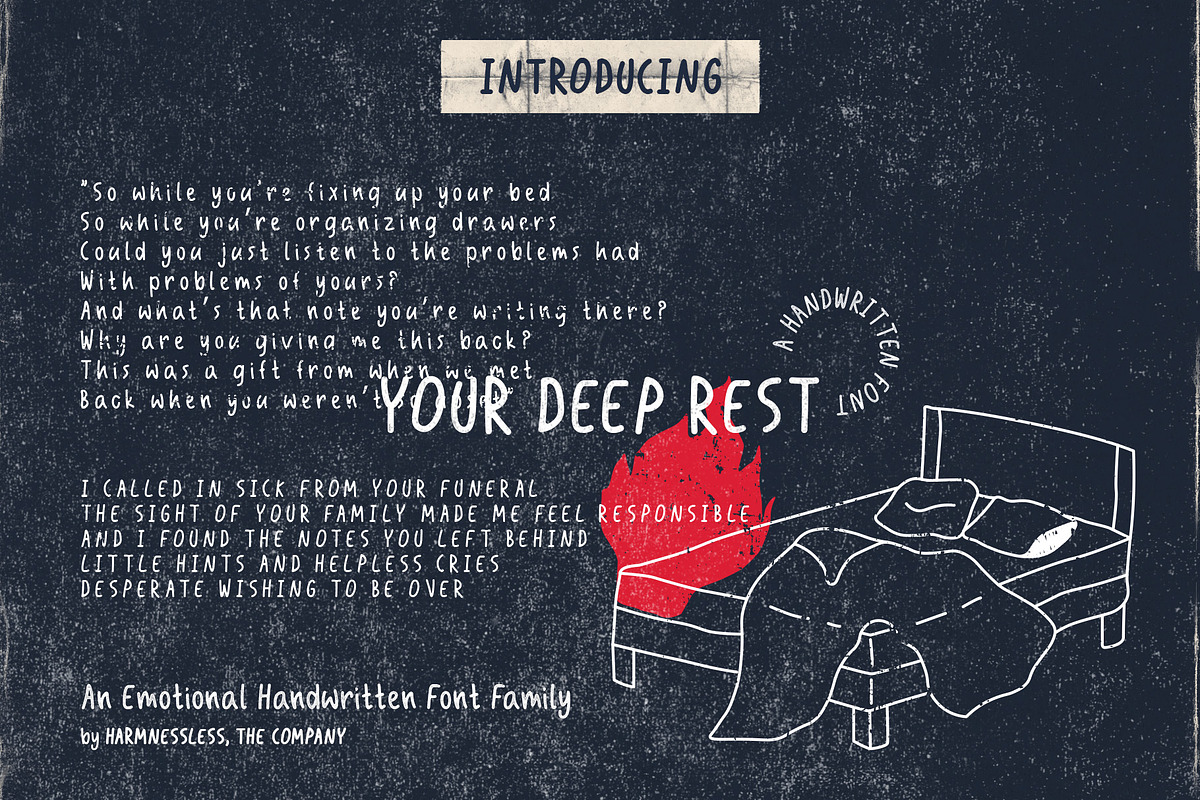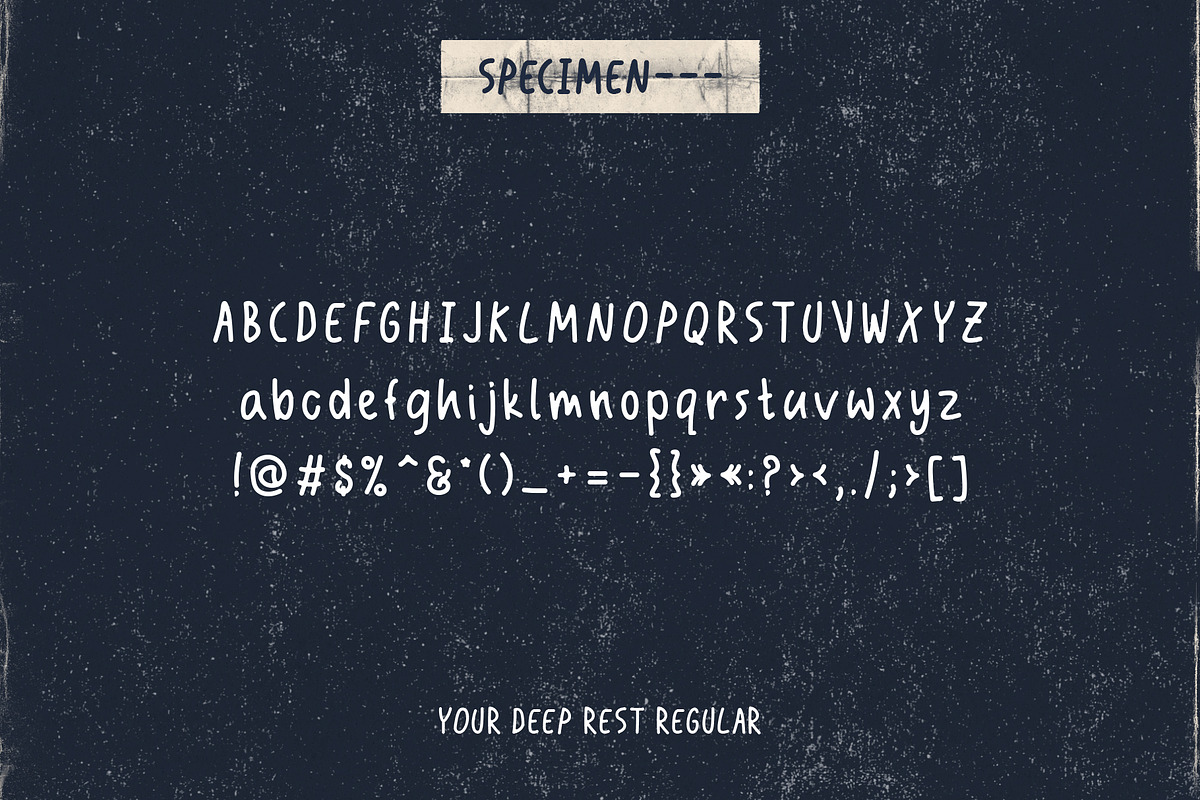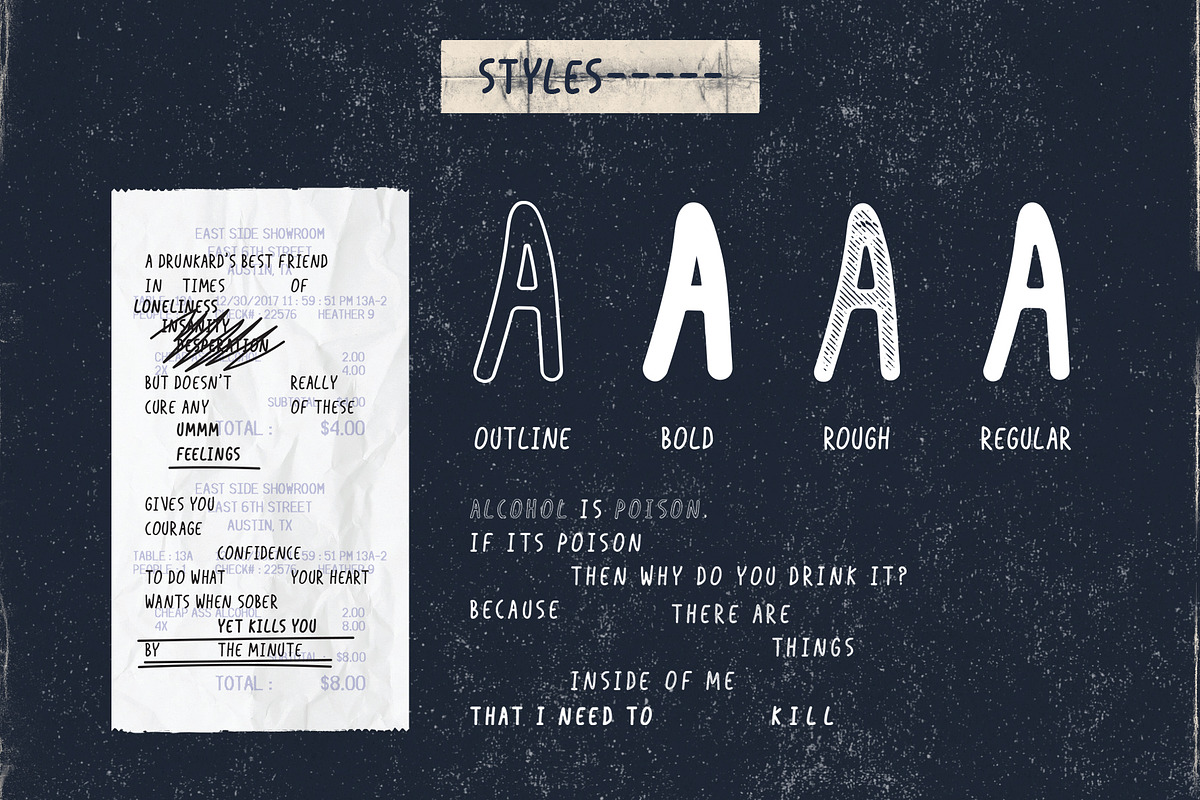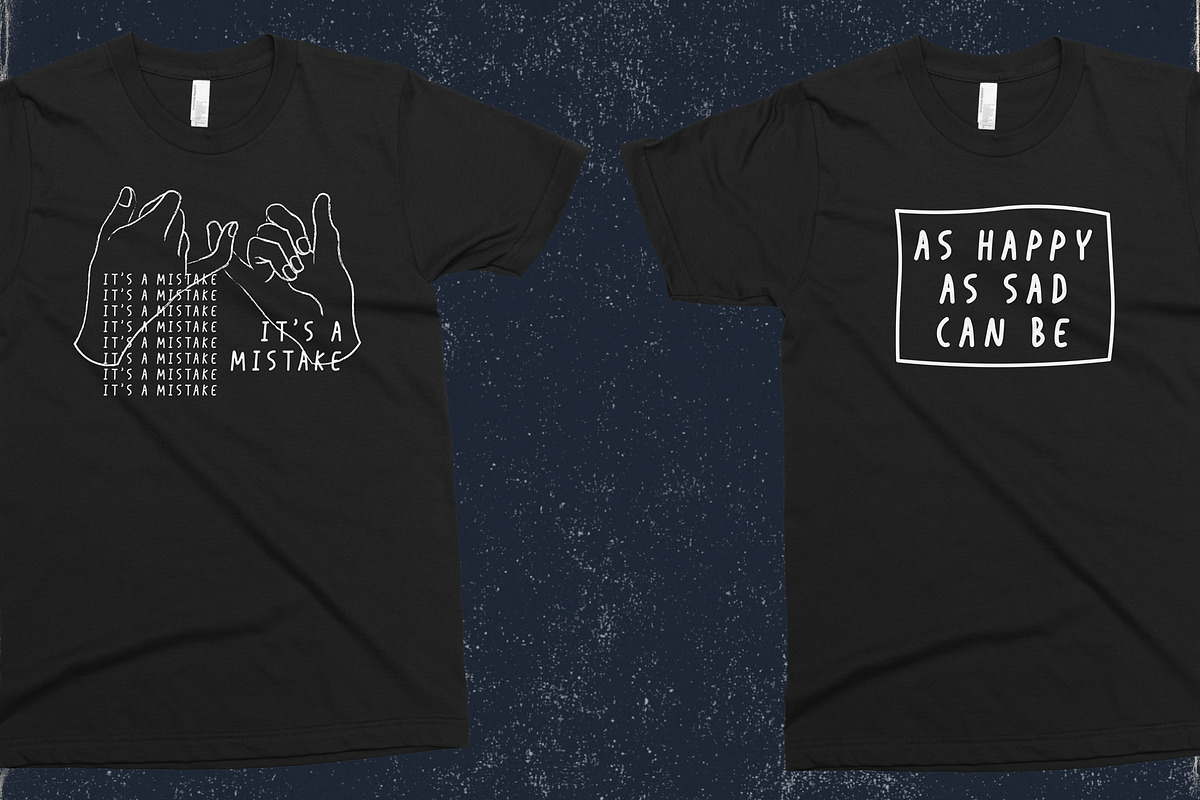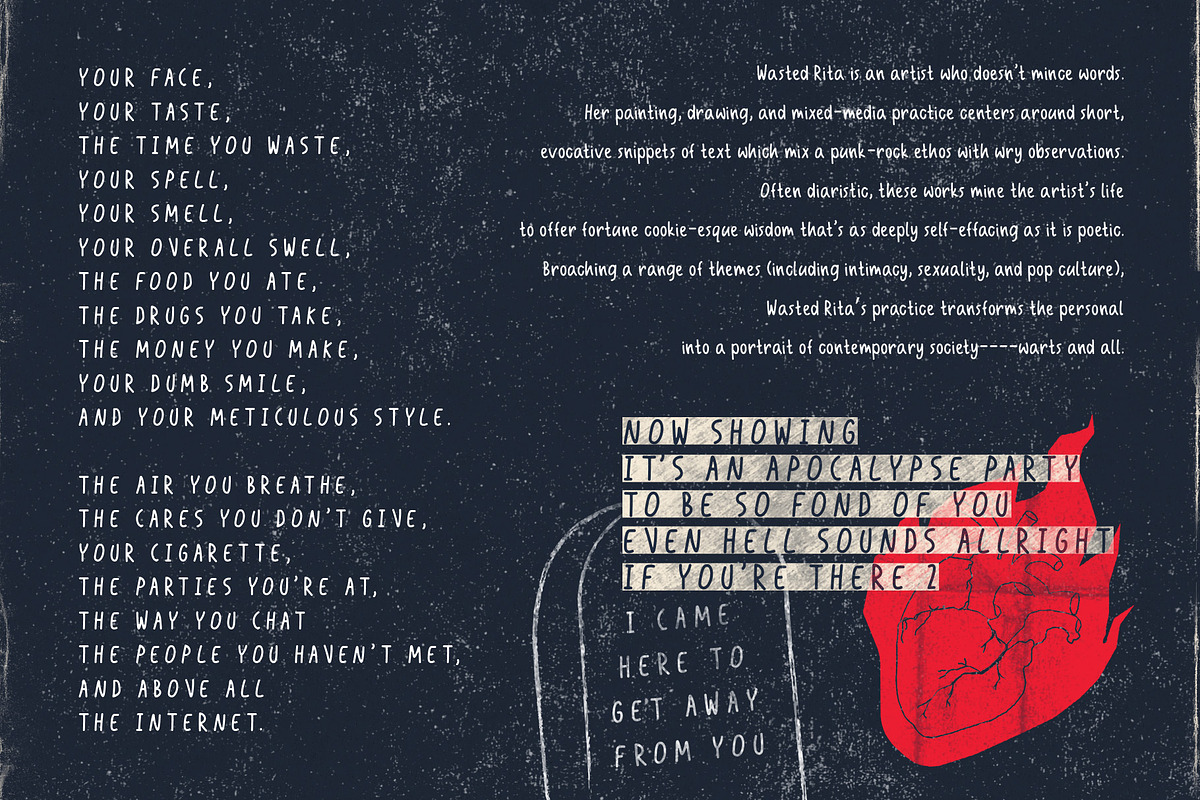
Your Deep Rest - Handwritten Font
Your Deep Rest is an emotional handwritten font that is absolutely perfect for quotes, products, logos, packaging, and so much more! Available in 4 style; regular, outline, rough, and bold.
Your Deep Rest is inspired by The Hotelier’s track Your Deep Rest (read: You're Depressed) sheds light on what life might be like for a someone left behind by suicide. It ranges from sadness, to fear, to regret, to guilt. This song has been praised as one of the best emo revival songs of the century (Ok. bold).
More than 390 glyphs was crafted inside Your Deep Rest Font.
Your Deep Rest features:
Uppercase & lowercase
Punctuation & symbols